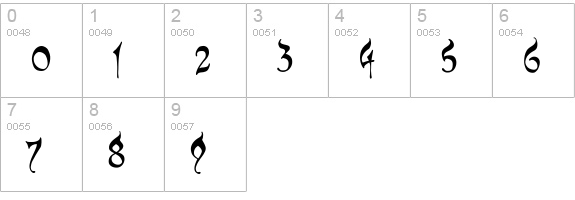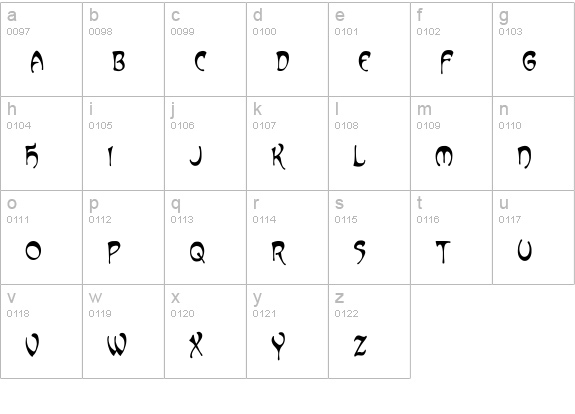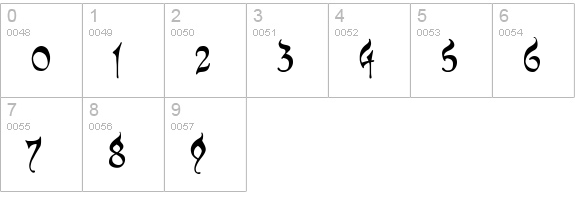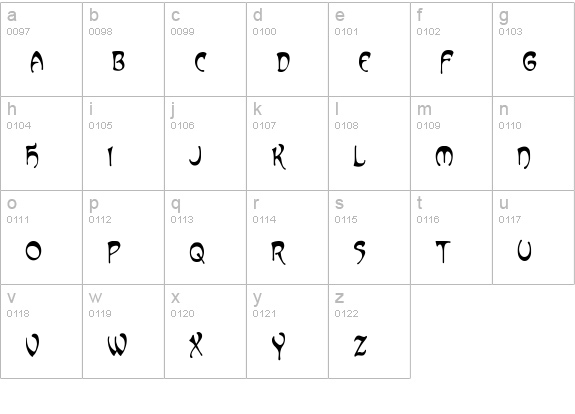
CCElsewhere-Regular Font Details
CCElsewhere-Regular is the standard, neutral variant in the CCElsewhere typeface family \xE2\x80\x94 well suited to general body text, paragraphs, and standard typographic work.
CCElsewhere-Regular is a modern and versatile font that exudes elegance and sophistication. With its clean lines and balanced proportions, this typeface is perfect for a wide range of design projects, from branding to editorial design. Designed with attention to detail, CCElsewhere-Regular is a highly legible font that ensures readability across various platforms and mediums. Its timeless appeal makes it suitable for both print and digital applications. Best of all, CCElsewhere-Regular is available for free download at FontsMarket.com. Now you can add this stunning font to your collection without any cost, and elevate your designs with its unique aesthetic. Don't miss out on this opportunity to enhance your projects with CCElsewhere-Regular's refined style and versatility.